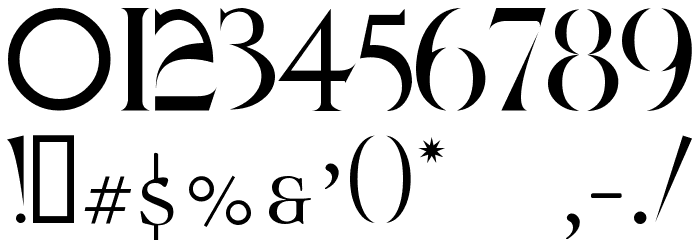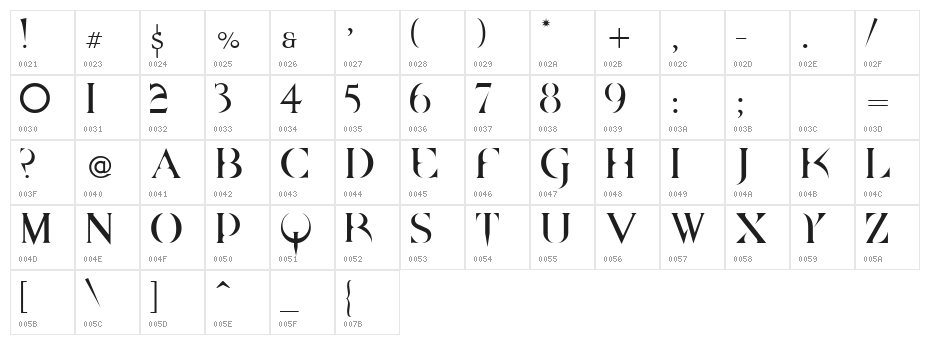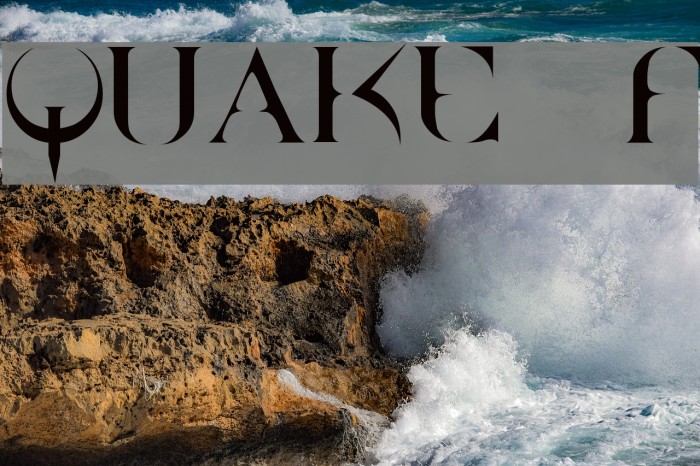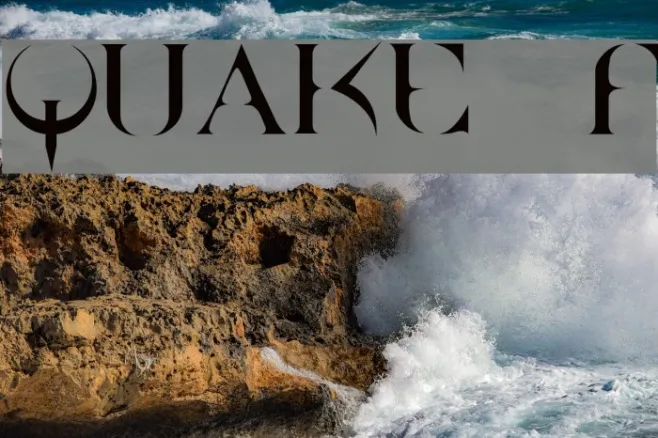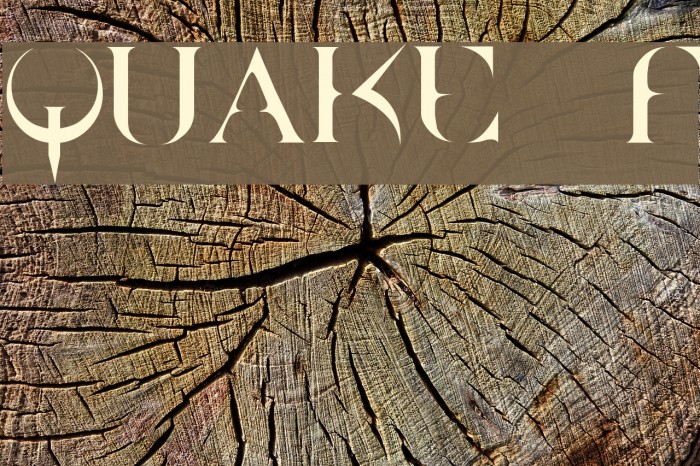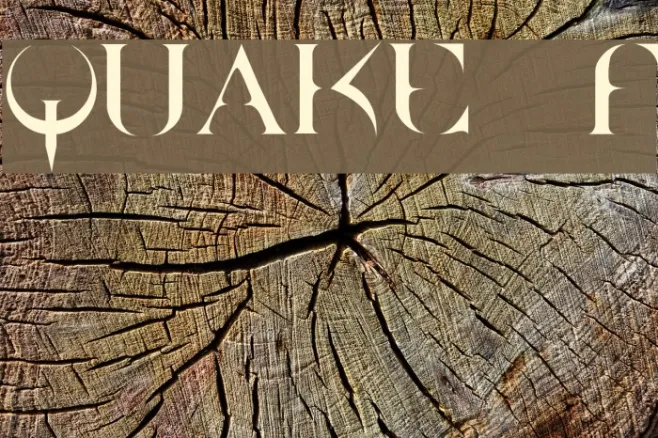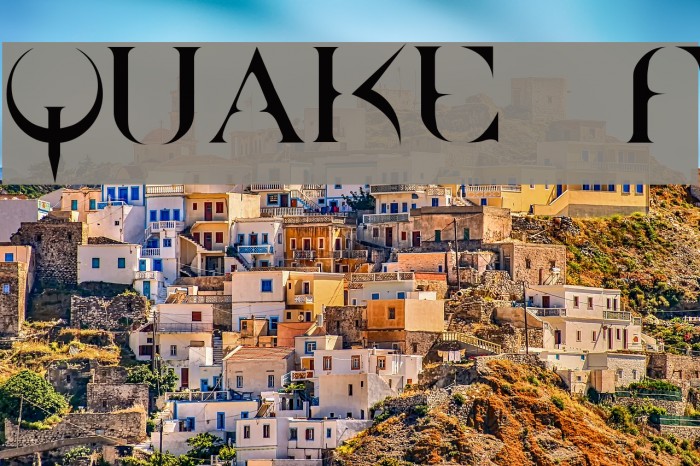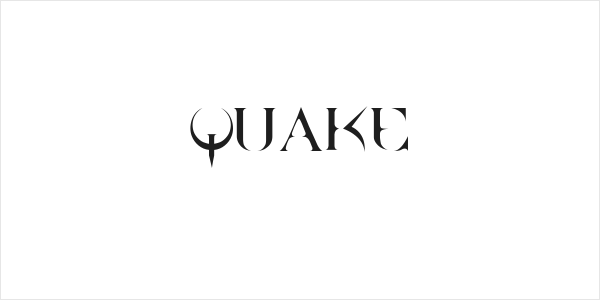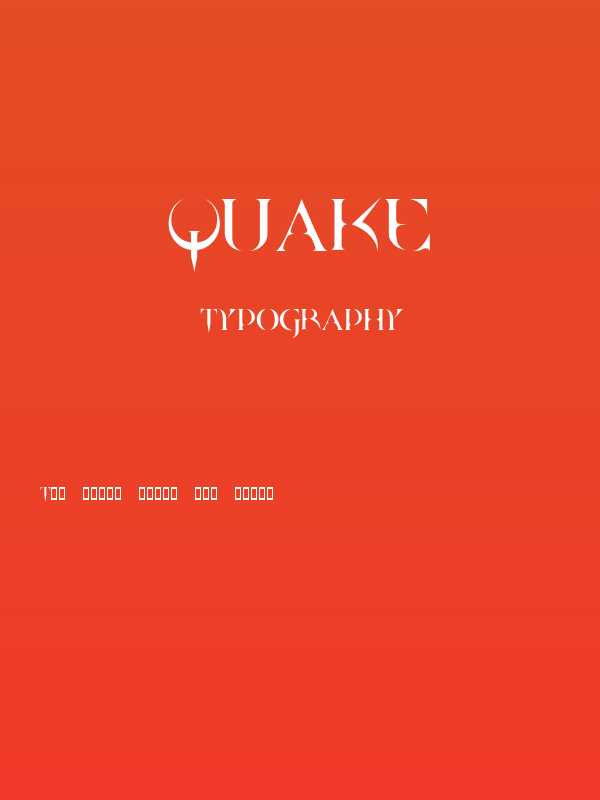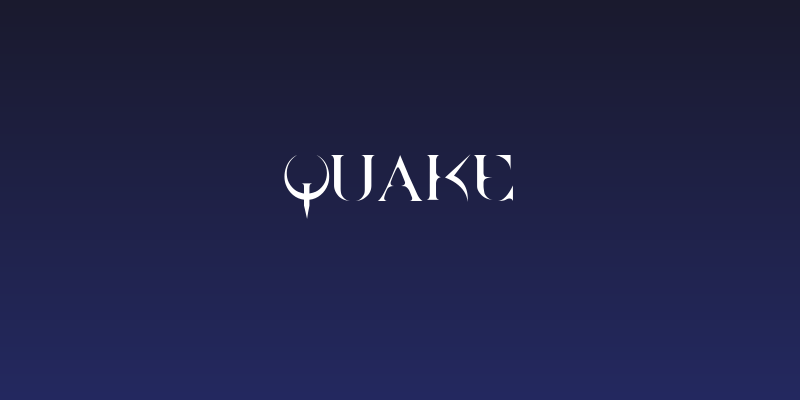
This font exhibits a bold and striking design, characterized by sharp, angular serifs and a high contrast between thick and thin strokes. The uppercase letters feature unique cutouts and geometric shapes, giving them a modern and edgy appearance. The numerals are equally bold, with a consistent style that complements the alphabet. Special characters maintain the same aesthetic, ensuring a cohesive look across all glyphs. The overall design is both decorative and functional, making it suitable for impactful visual statements.
| Proposed Projects | Ideal for branding, poster design, video game titles, and any project requiring a strong visual impact. |